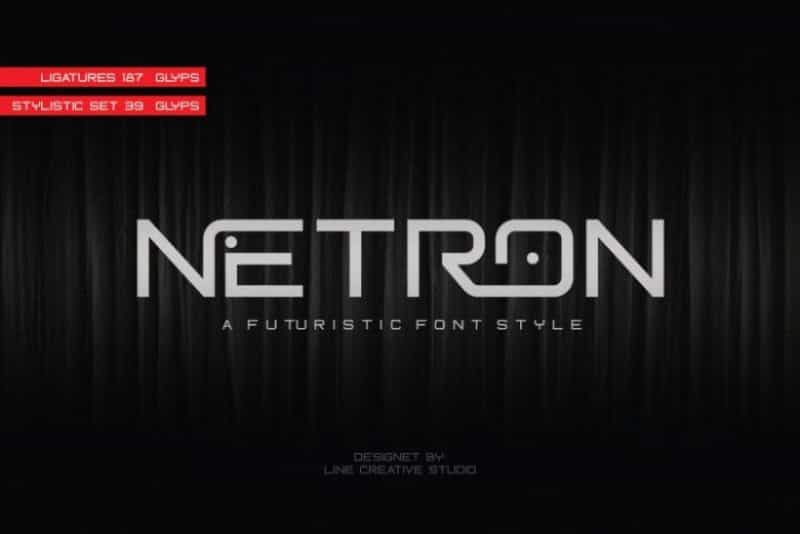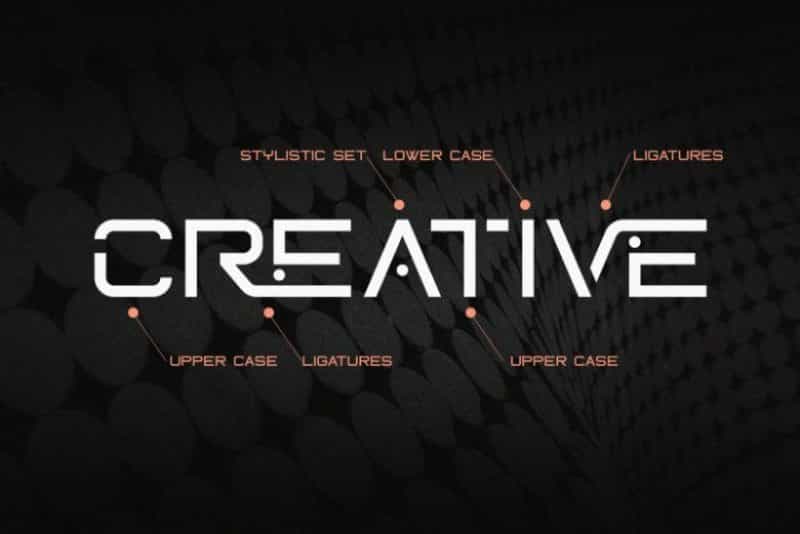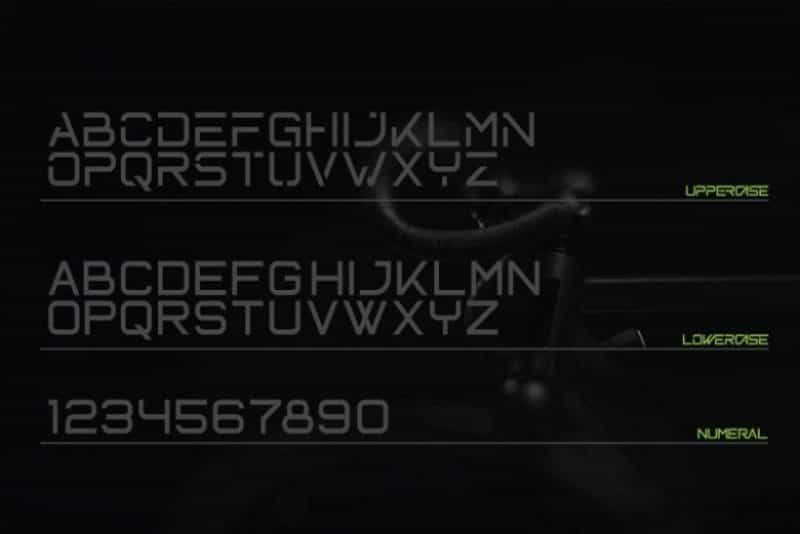
Discover Netron Font, part of the Sans Serif Display collection—a versatile and unique font perfect for adding a personal touch to your projects. Download it for free and enjoy crafting designs with style, from invitations to social media posts. This font is available exclusively for personal use, giving you the freedom to create without limits. Unlock your creativity with Netron Font today!
It’s a futuristic sans serif font in that it was deliberately kept to minimal lines that give it both the simplicity and the artistry. This produces the brilliance of your text within the zone of modern smart effect. This font is completly with ligature and alternative letters it will be very good for you, for example, posters, logos, magazines, covers, banners, t-shirts, and headers or large scale artwork.